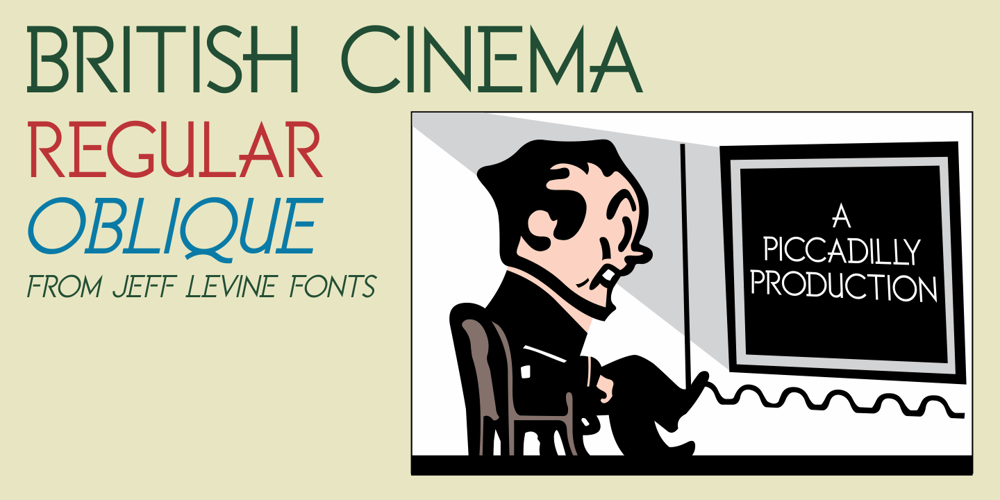
British Cinema JNL Font Family was designed by Jeff Levine and published by Jeff Levine. British Cinema JNL contains 2 styles and family package options. The hand lettered titles and credits from the 1945 British film “The Way to the Stars” were the working model for the aptly-titled British Cinema JNL, which is available in both regular and oblique versions.